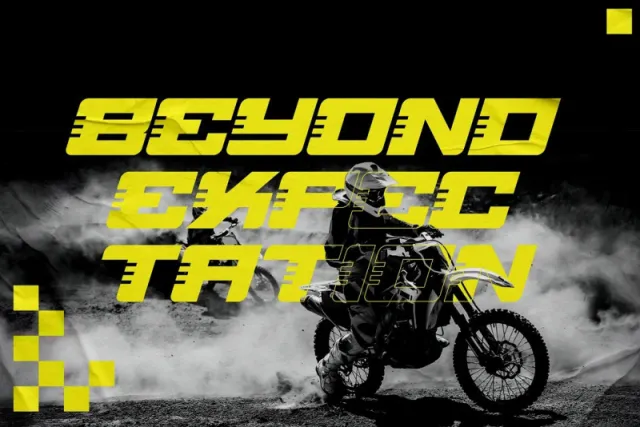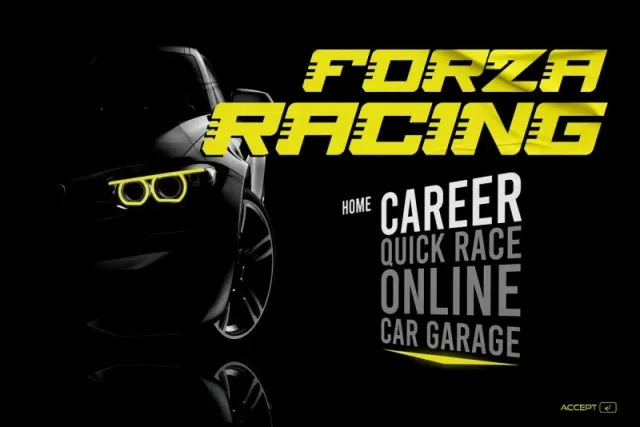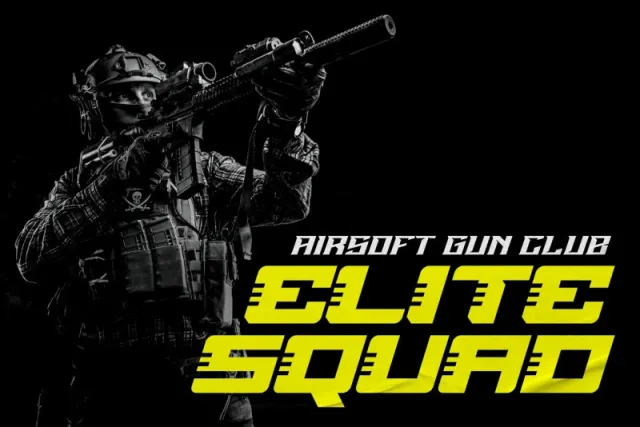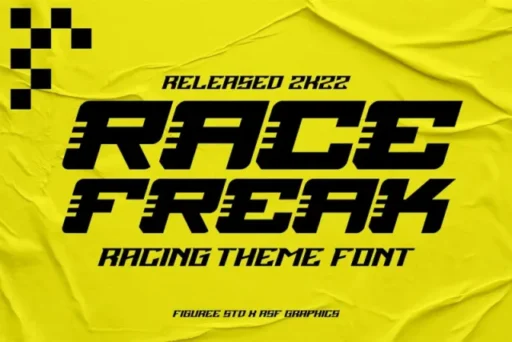
Race Freak Font
Race Freak is a bold display font built for speed and action. Its sharp, dynamic letterforms capture the thrill of the racetrack. Use it for headlines, jerseys, logos, a…
Race Freak is a bold display font built for speed and action. Its sharp, dynamic letterforms capture the thrill of the racetrack. Use it for headlines, jerseys, logos, and posters. It also shines on packaging, ads, and any automotive‑themed design.
Where Race Freak Font works best
Race Freak Font is built for size: event posters, hero headlines and billboard-style layouts.
High contrast display type like Race Freak Font reads instantly in thumbnails and motion graphics.
Race Freak Font is a Display Fonts typeface tagged Bold, Branding, Display, Display Fonts. It works well for headlines, logos, posters, social media graphics and branding projects that need a distinctive display fonts look.